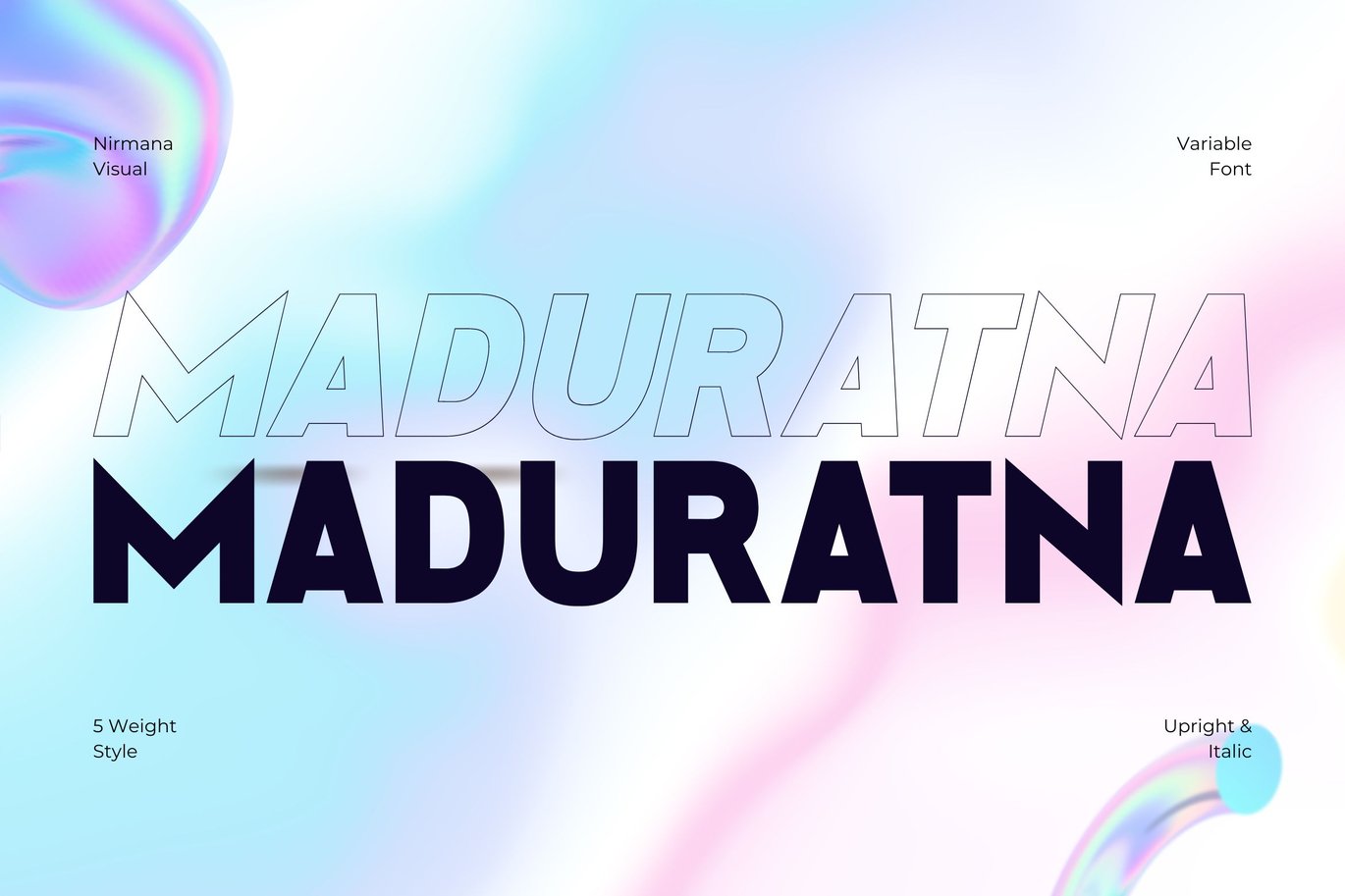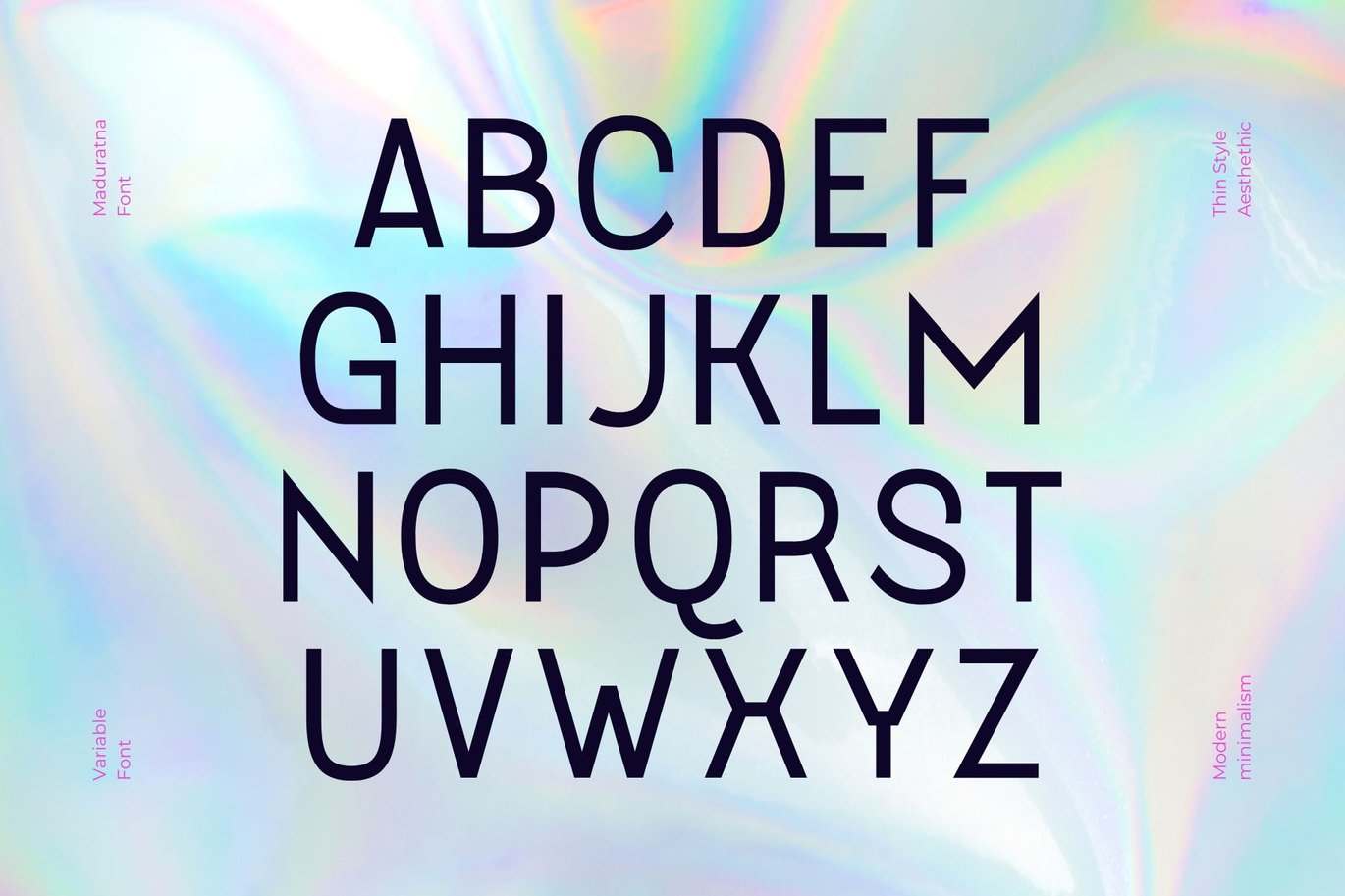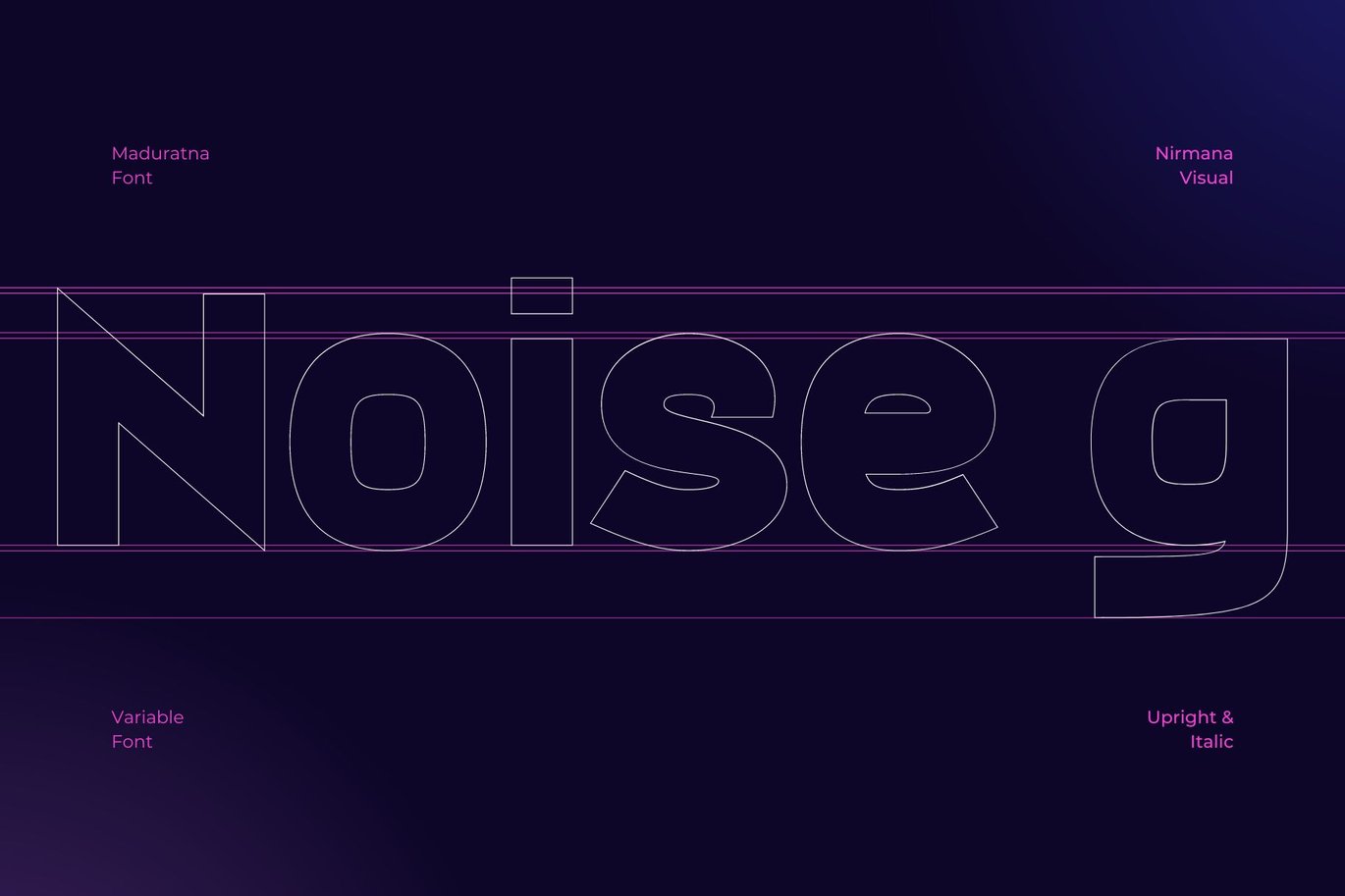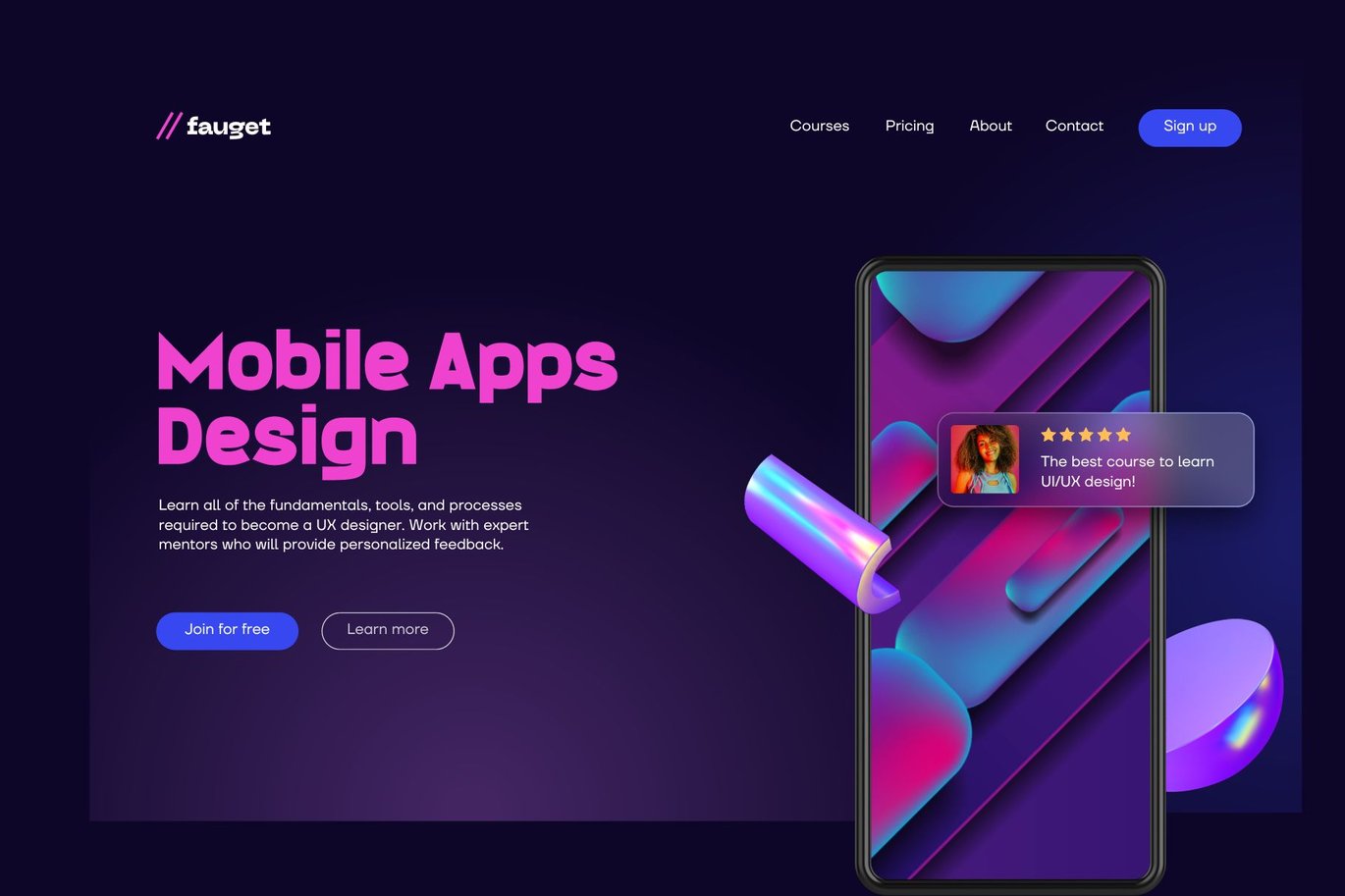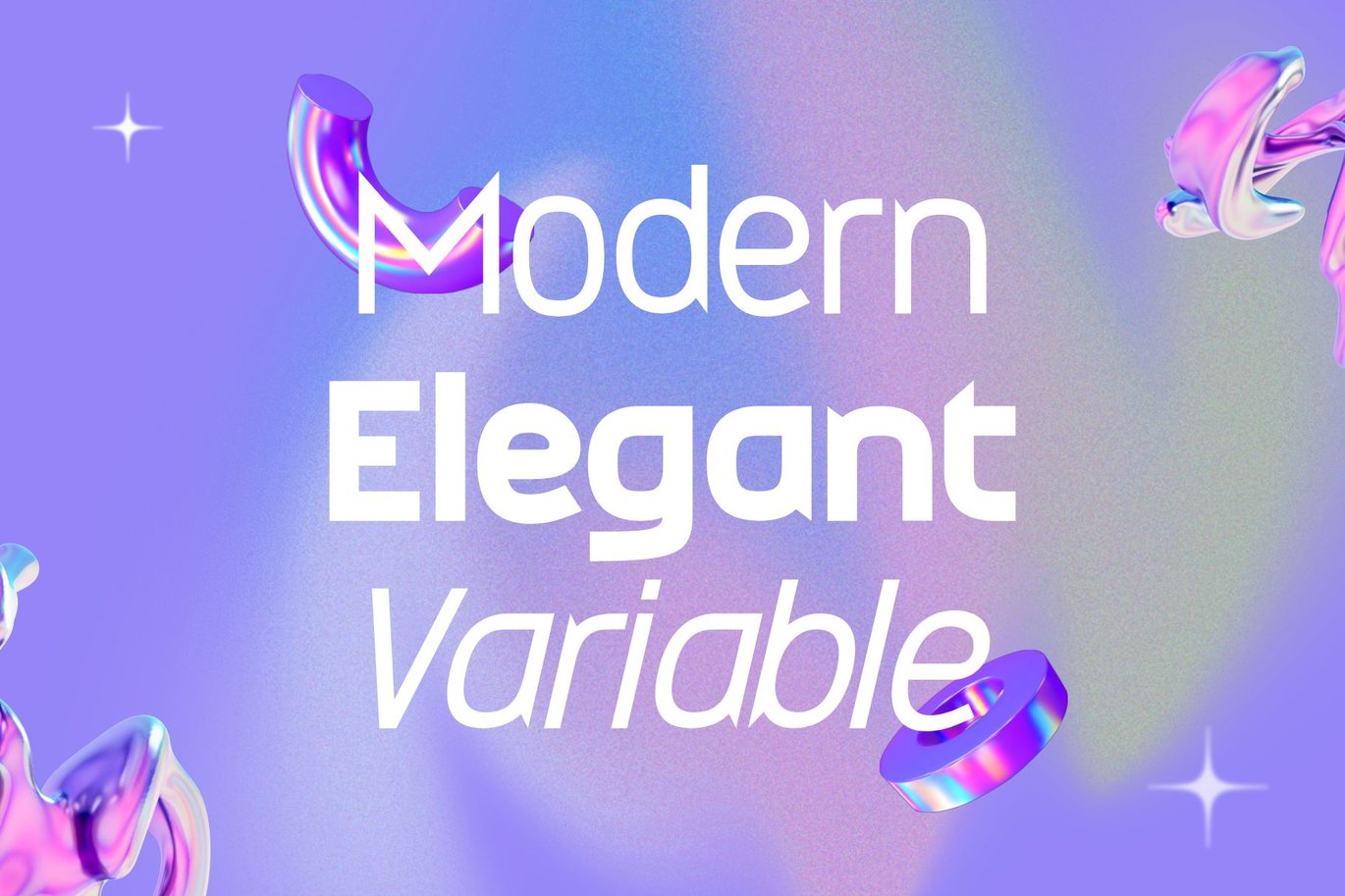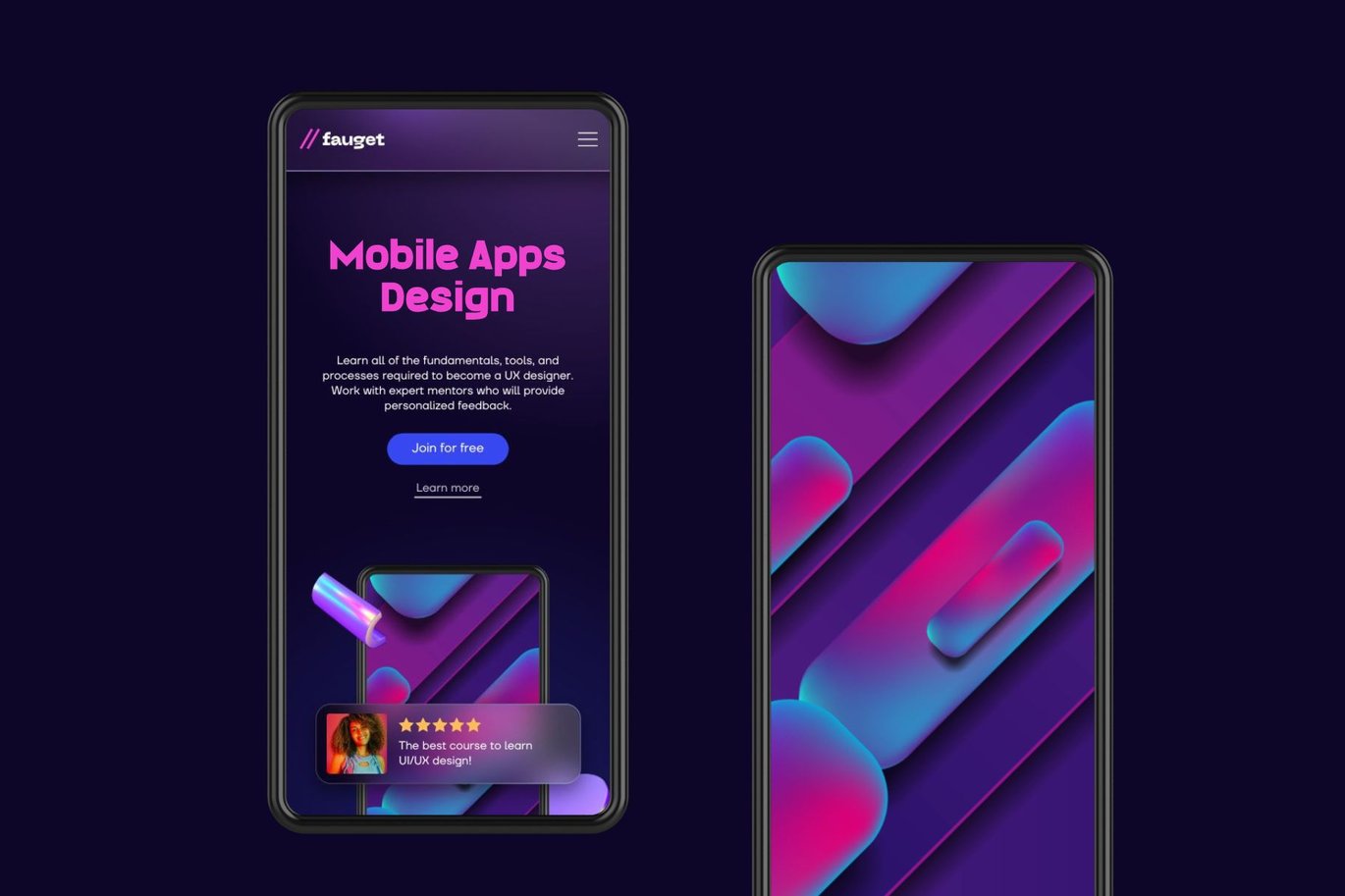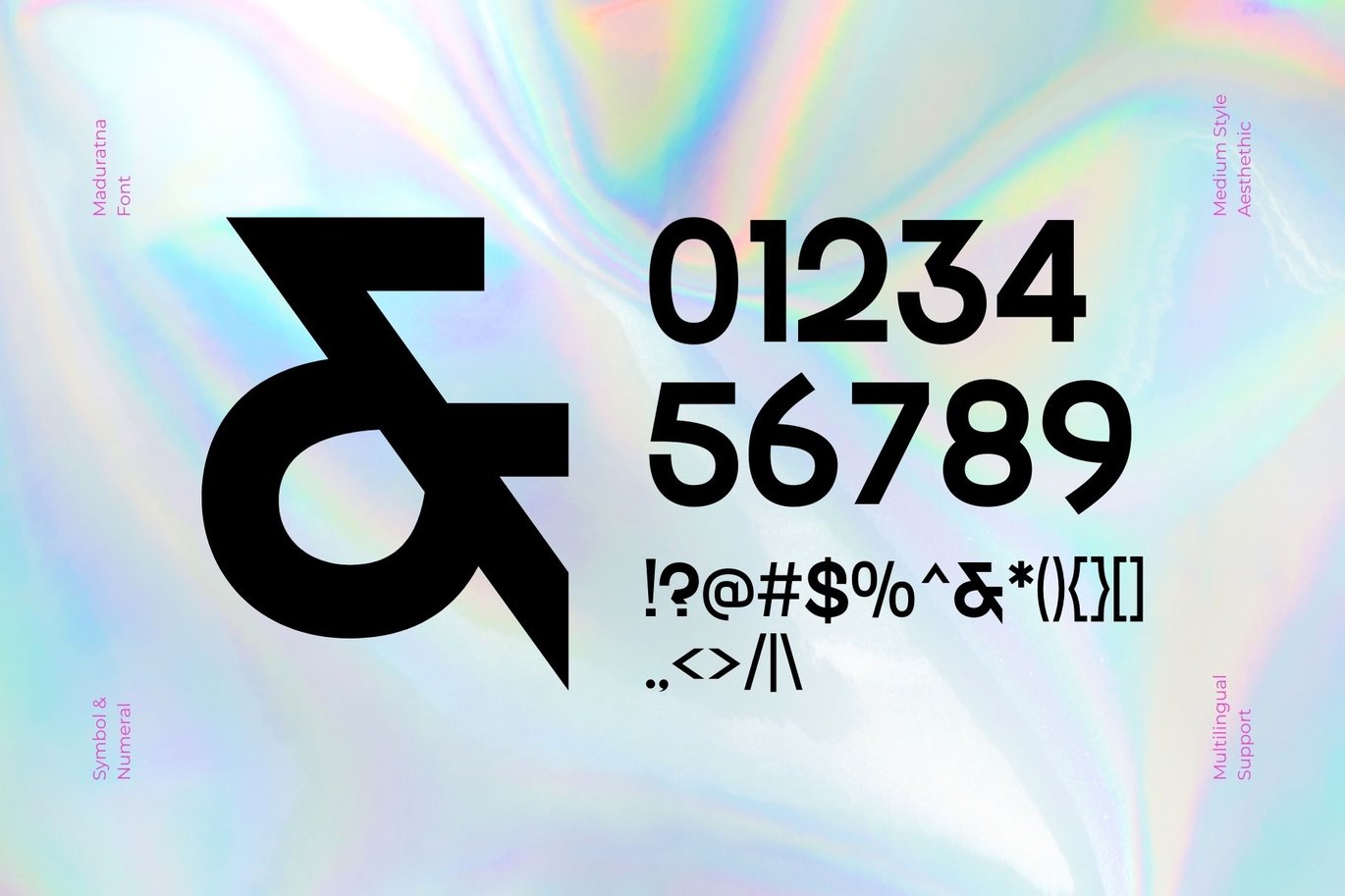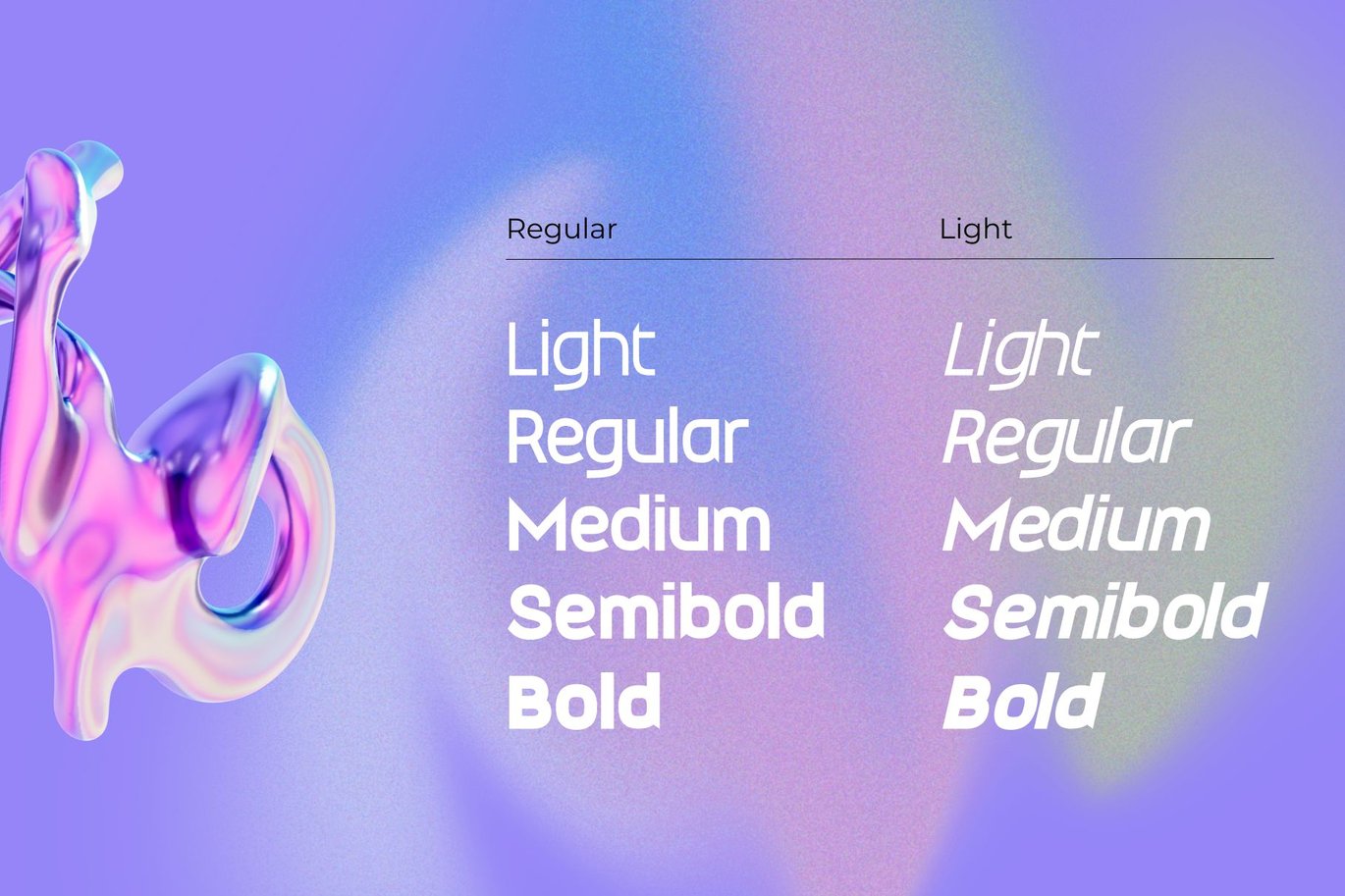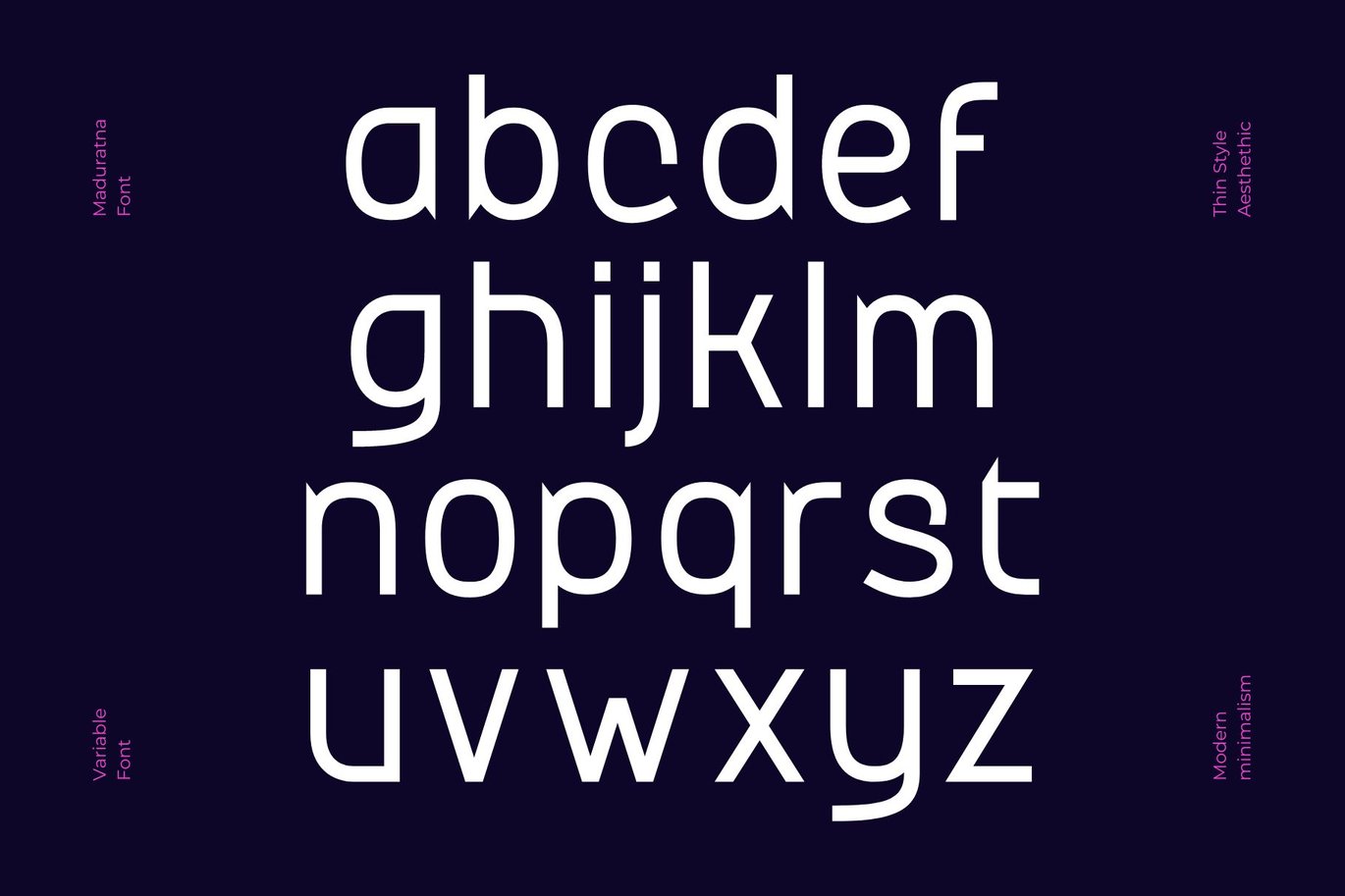
Maduratna – Logo Font
Maduratna Unique& playful sans serif serif family with 5 Weights
Maduratna offers beautiful typographic harmony for a diversity of design projects, including logos & branding, social media posts, advertisements & product designs.